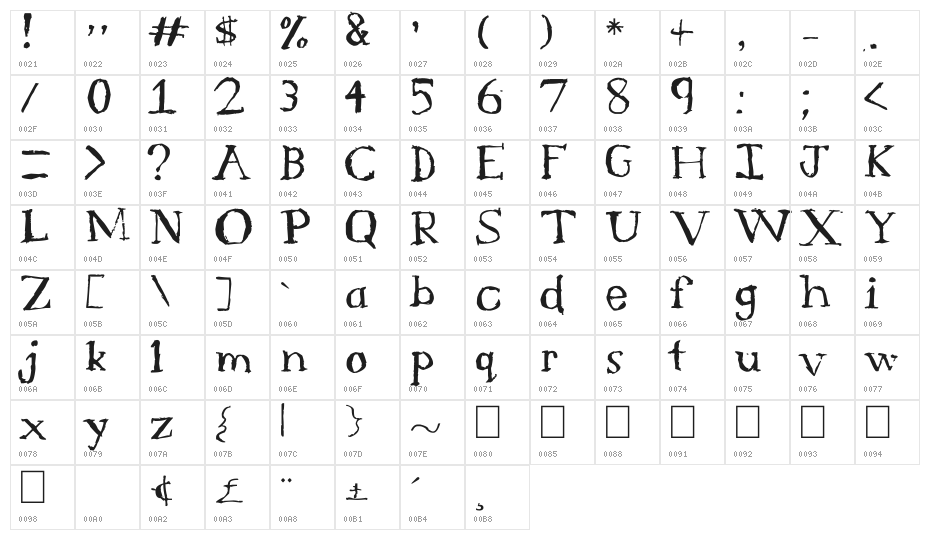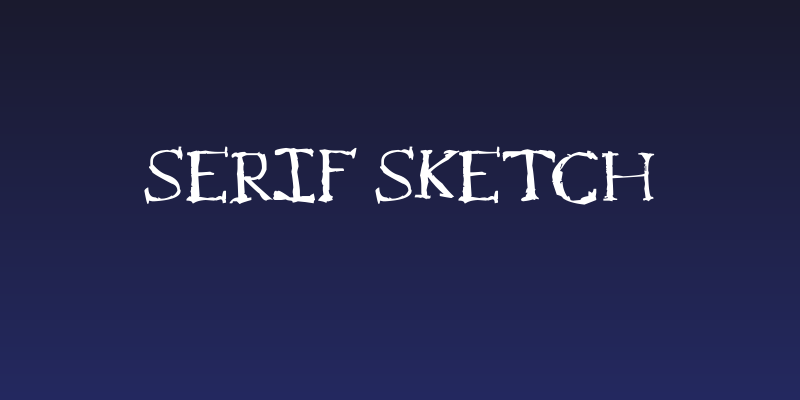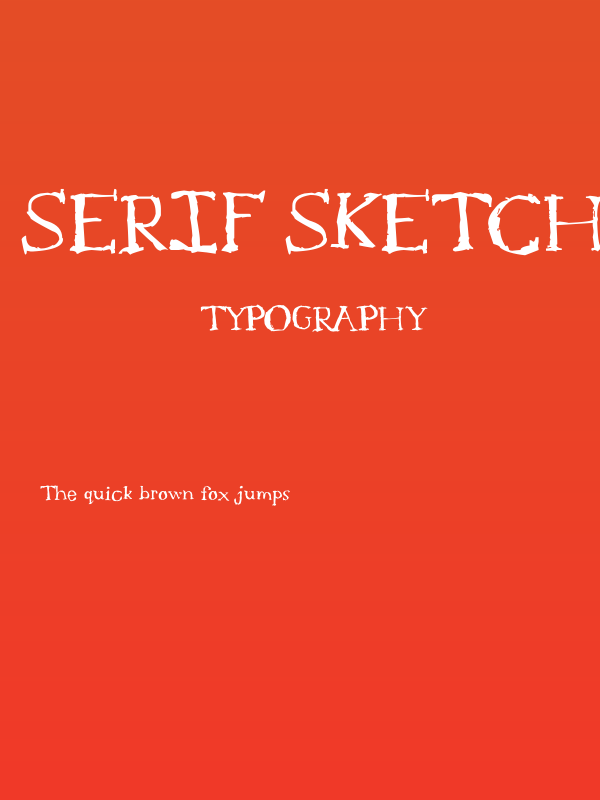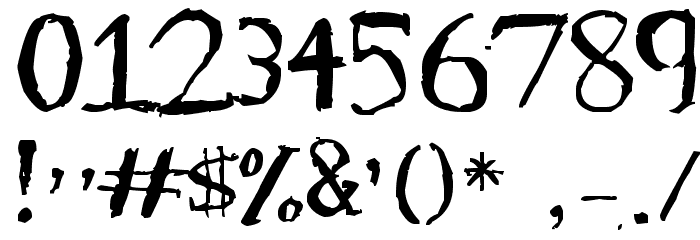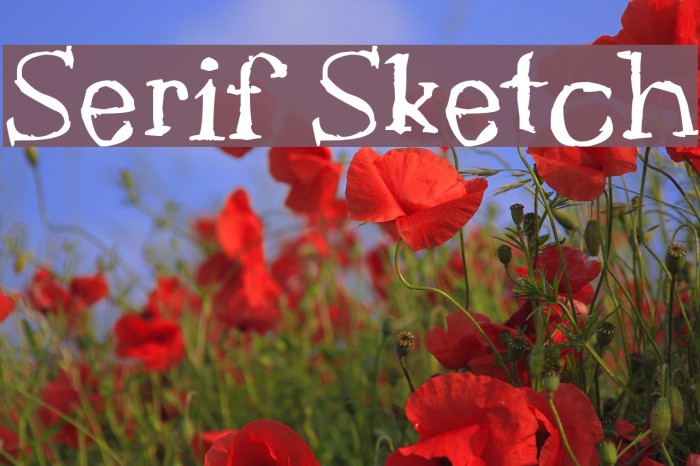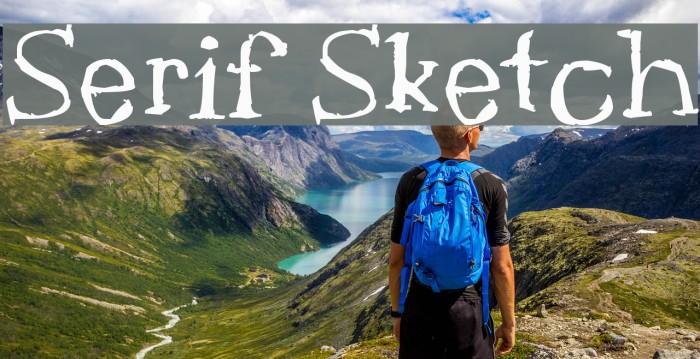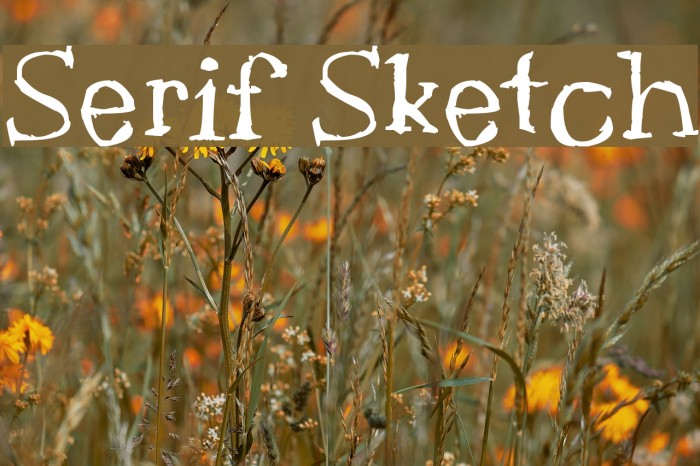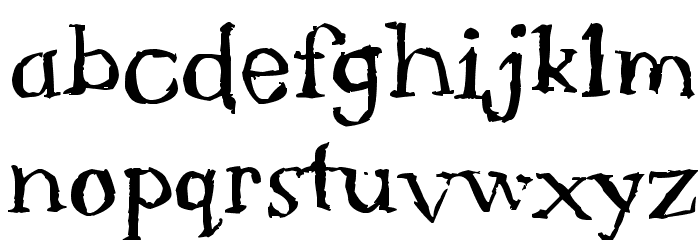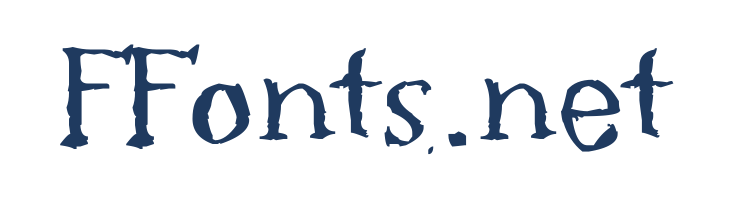
Serif Sketch Font
Serif Sketch Description
This font features a distinctive hand-drawn style with rough, sketch-like edges, giving it a unique and artistic appearance. The characters are bold and slightly irregular, adding to the handcrafted feel. The uppercase and lowercase letters maintain a consistent style, with the uppercase being slightly more pronounced. Numbers and special characters follow the same sketchy aesthetic, ensuring uniformity across all glyphs. The font's playful yet edgy design makes it stand out, making it suitable for creative and informal projects. Its uneven strokes and textured look provide a sense of movement and dynamism.